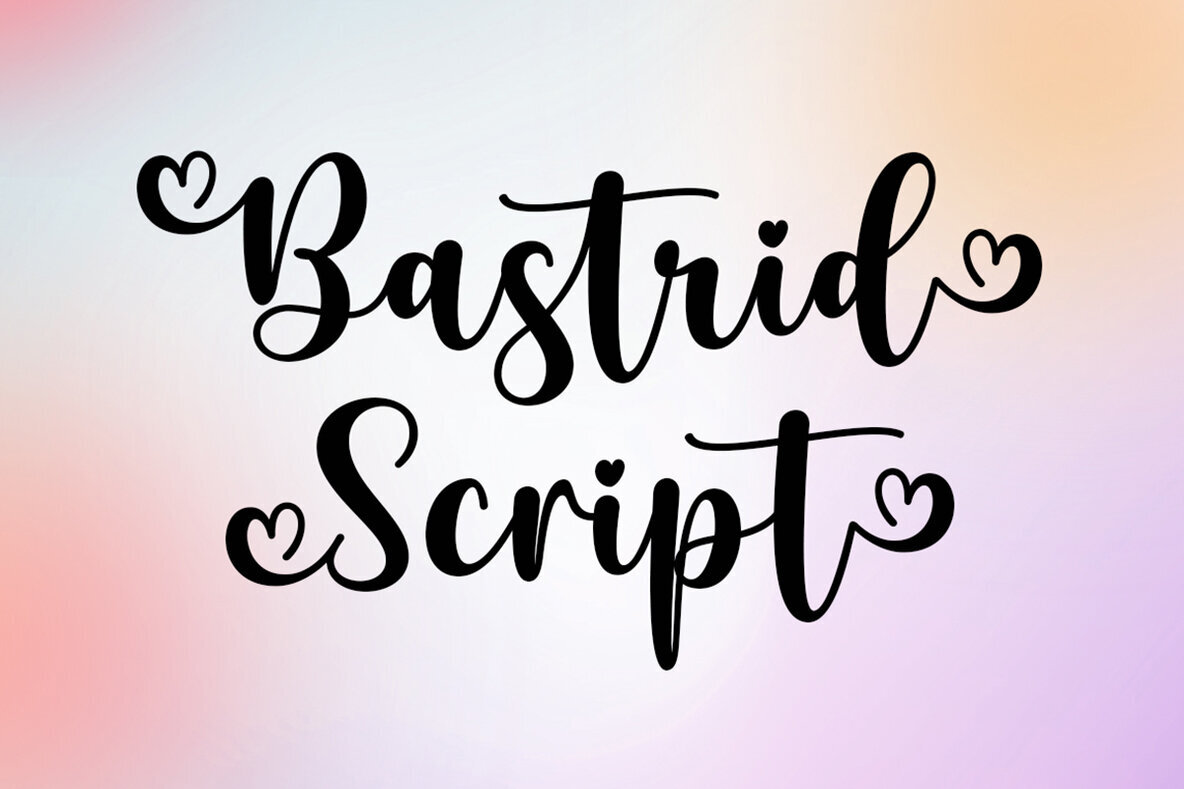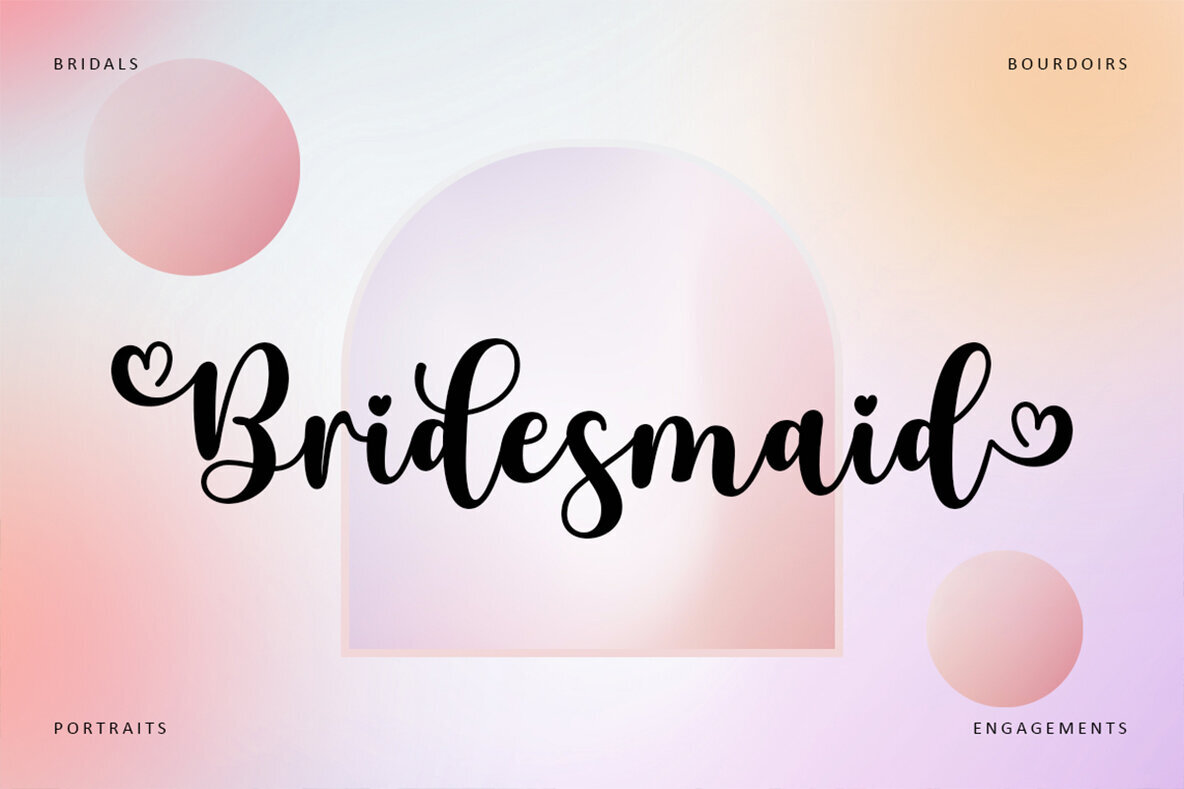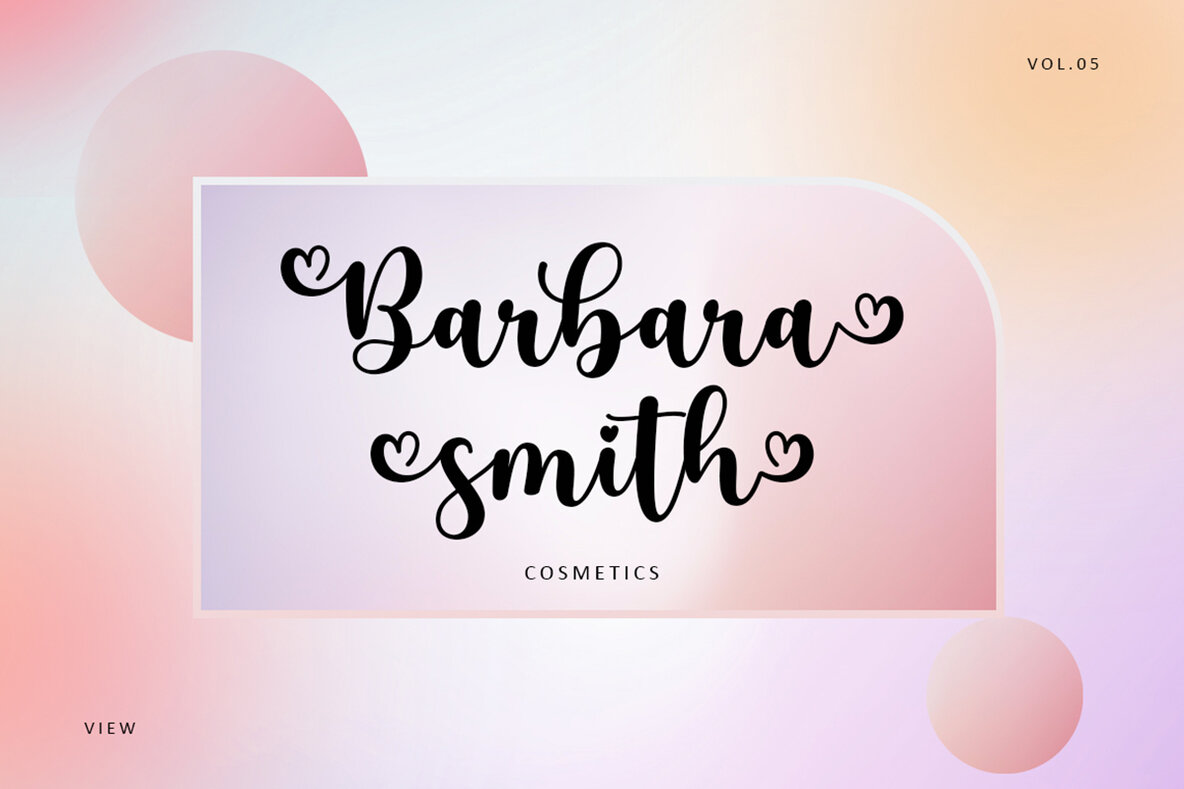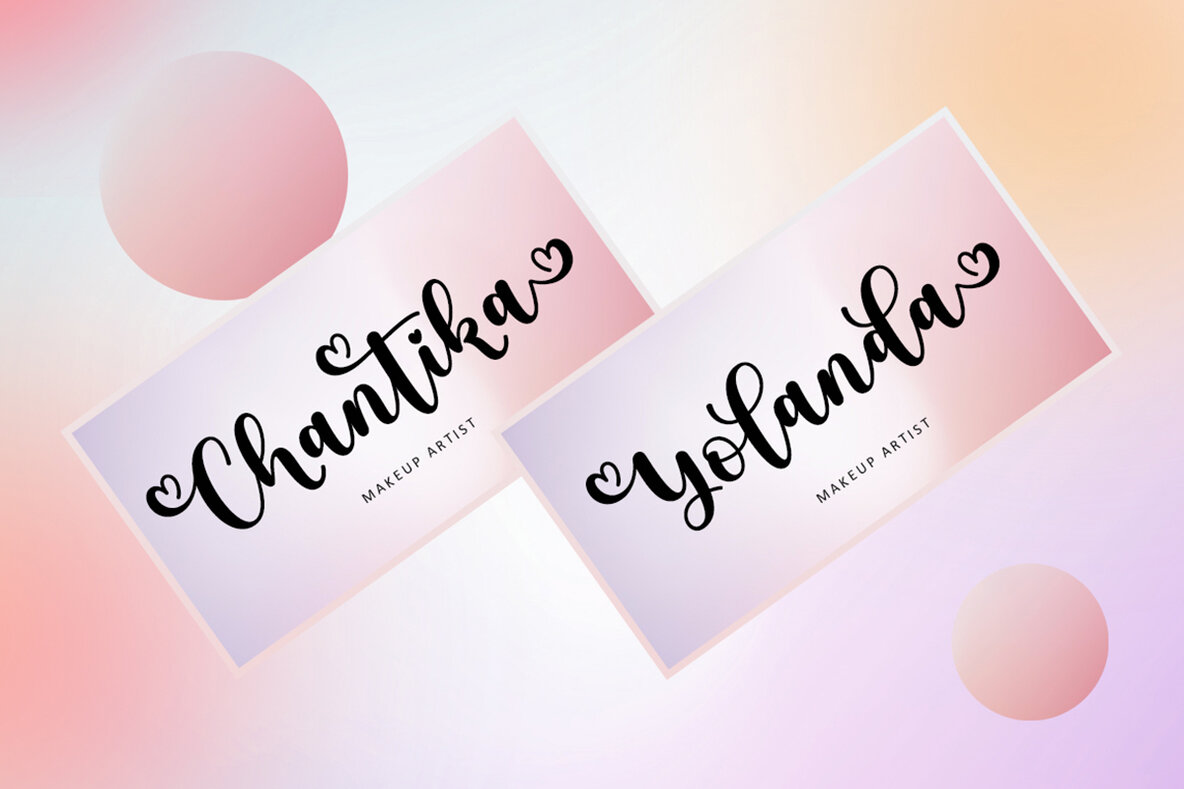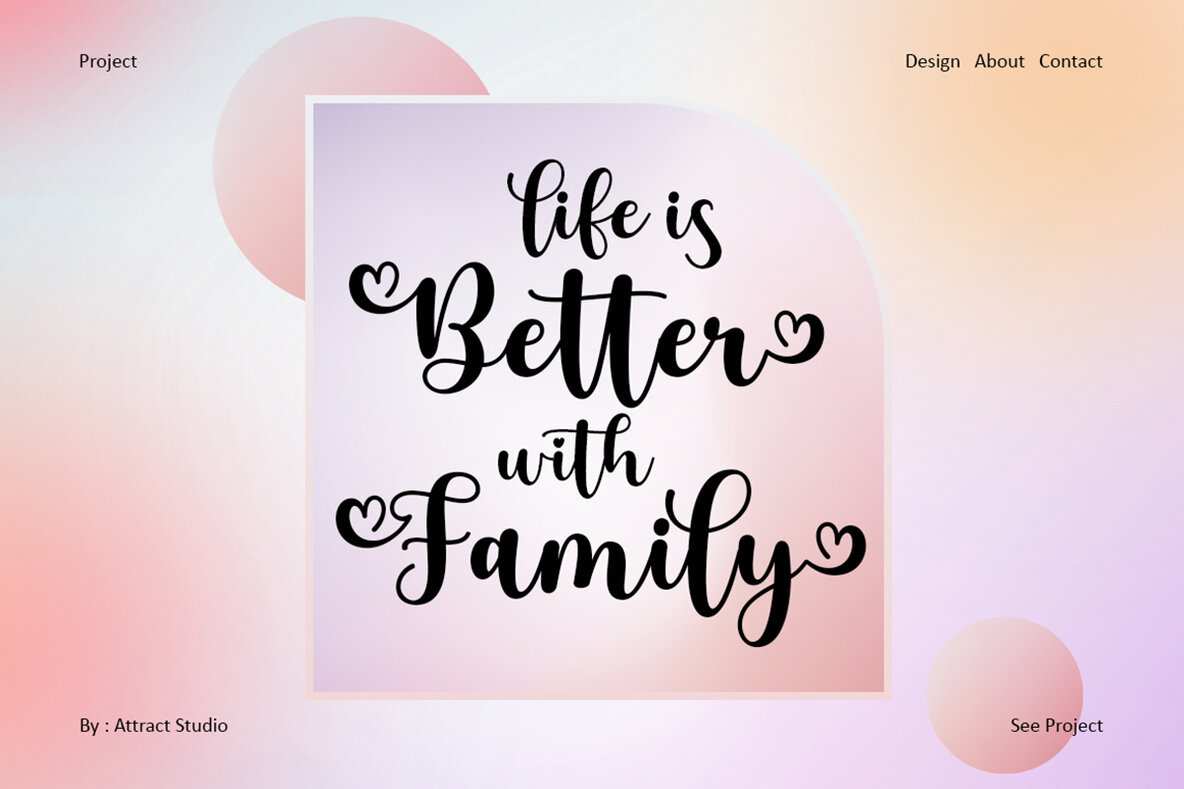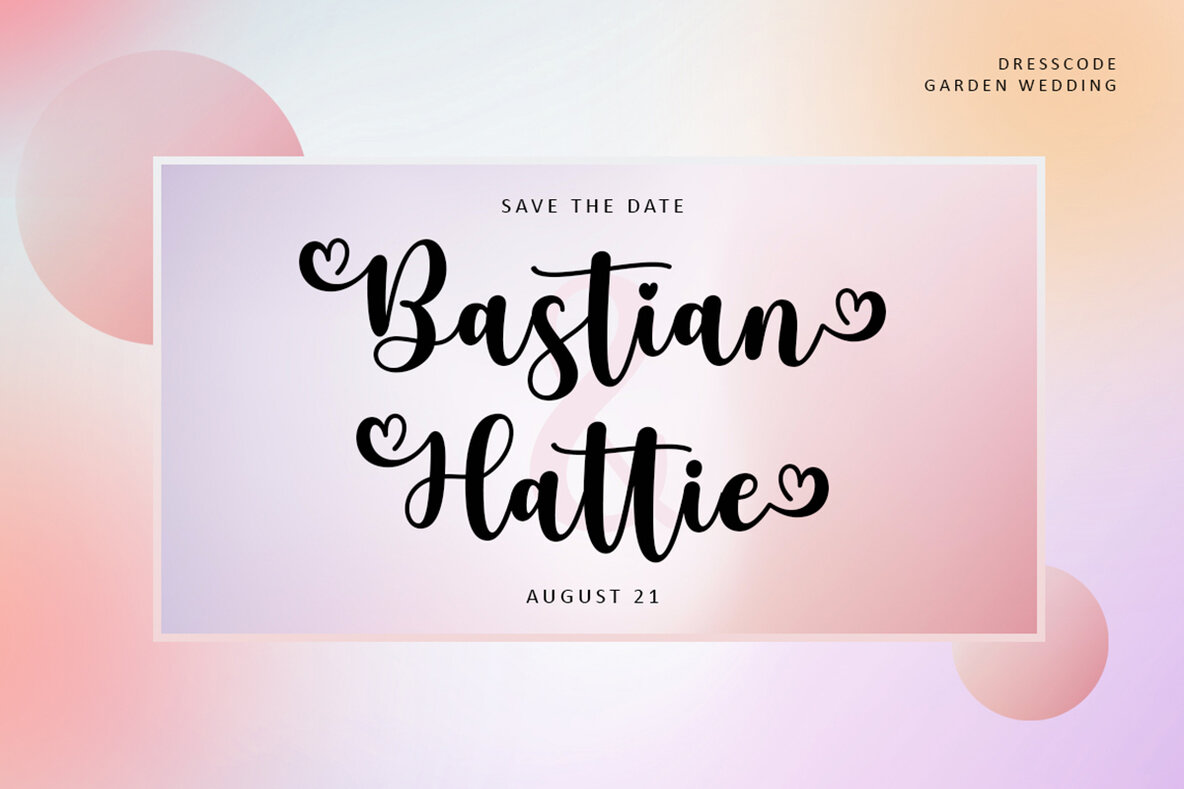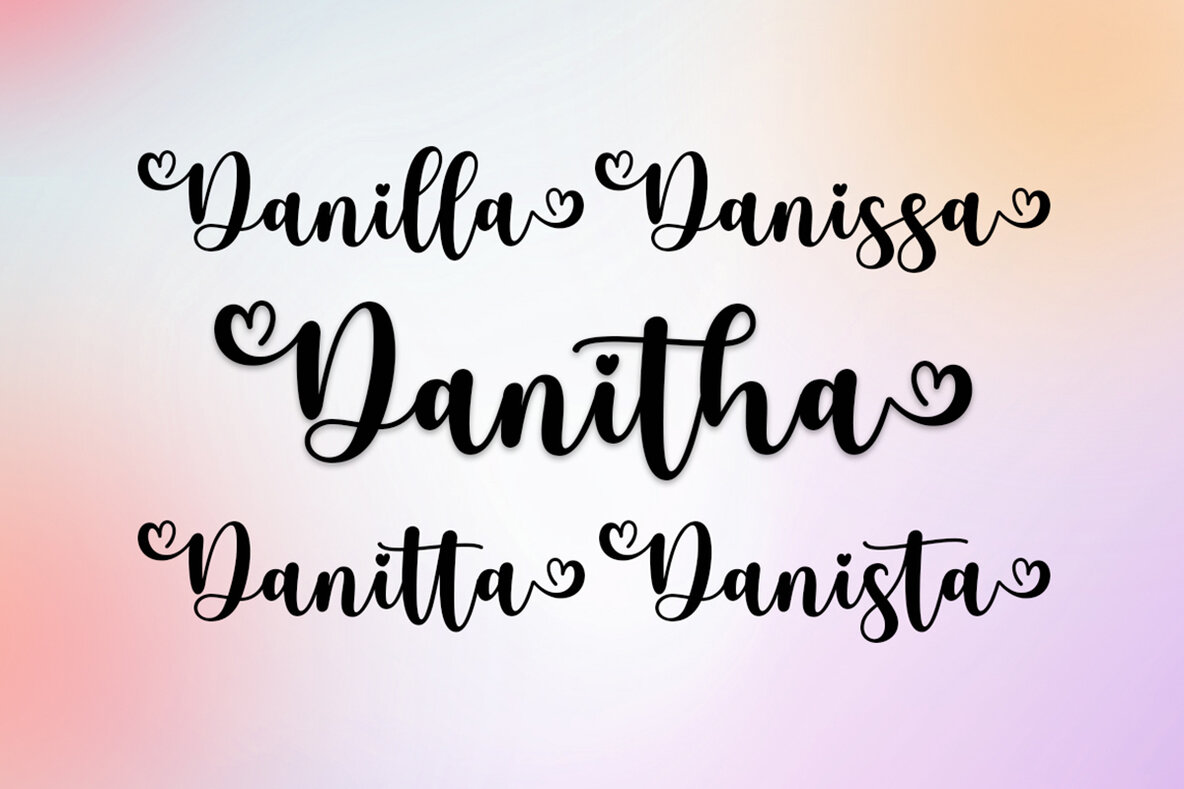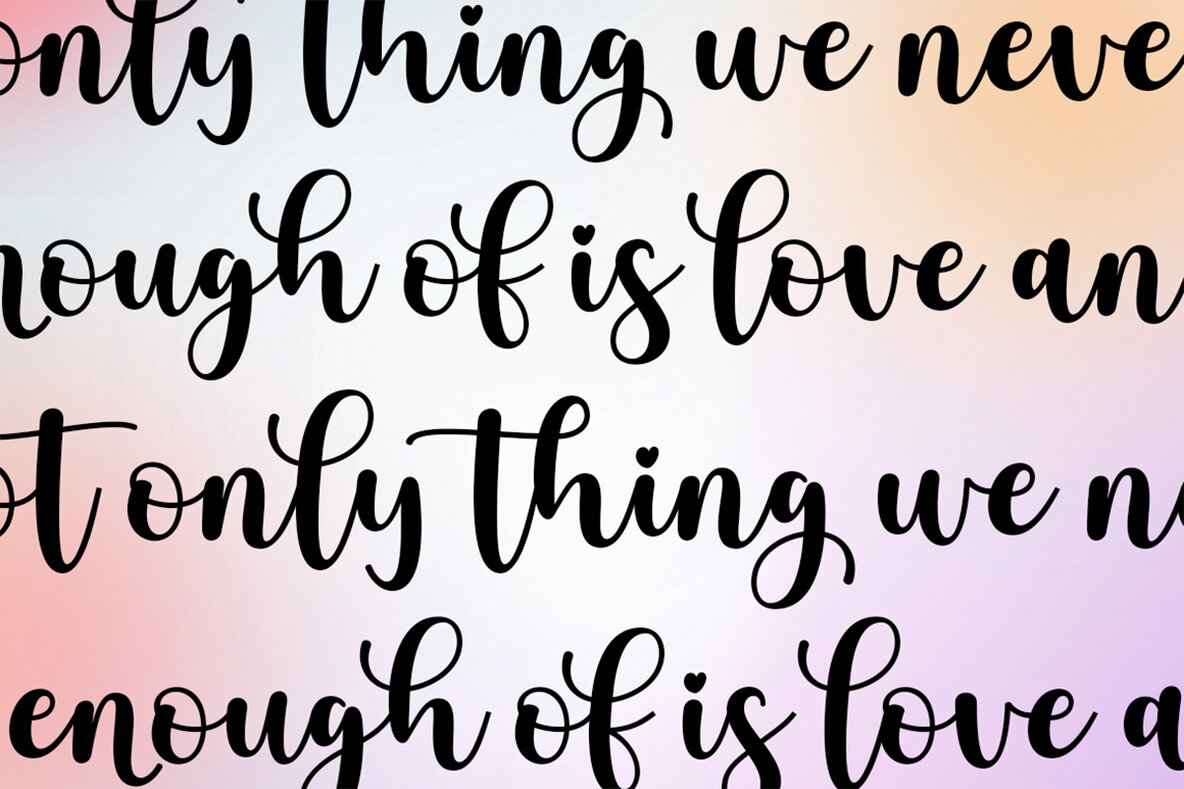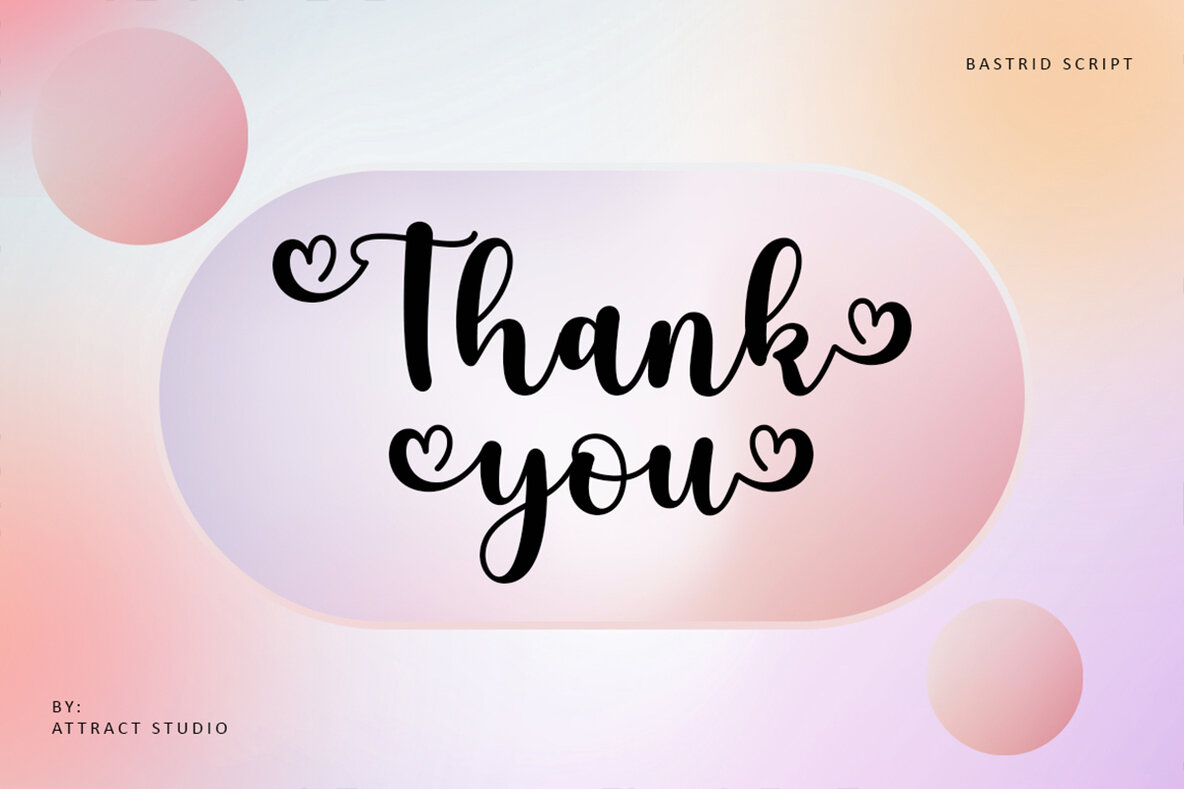
Bastrid Script Font
Bastrid Script
Discover the delightful charm of Bastrid Script, a feminine modern handwritten font that is as versatile as it is captivating. Its casual charm and readability blend seamlessly with various design contexts, making it a favorite among designers. Whether prominently featured as a headline or tastefully integrated into busy backgrounds, Bastrid Script offers an impressive aesthetic that remains grounded in its accessible design.Bastrid Script: A Feminine Modern Handwritten Typeface